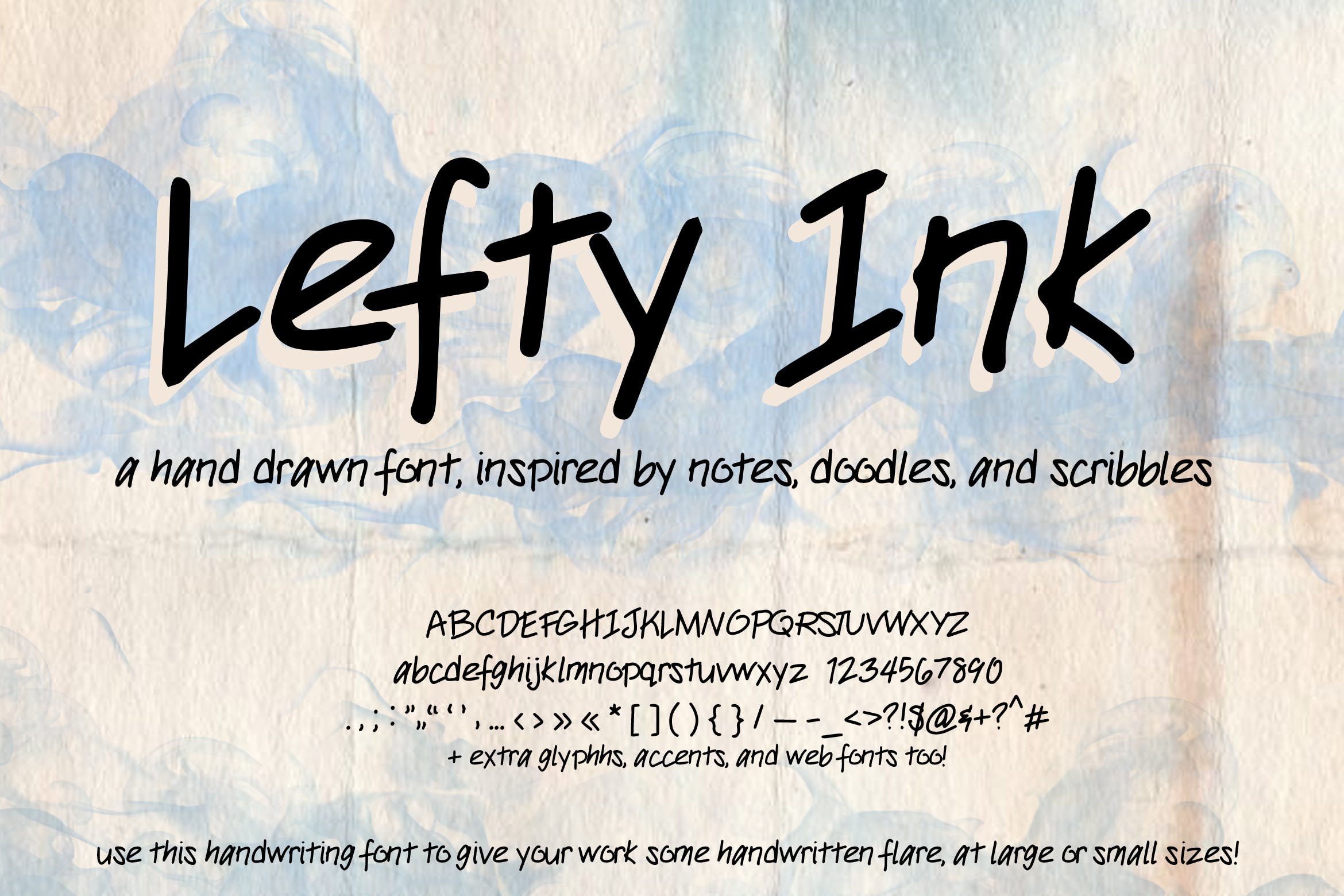
Introducing Lefty Ink Handwriting Font, a sketchy, handwritten sans serif font.
If you’re looking for aesthetic fonts, perfect for a hand drawn type look, this might be up your alley. I was inspired by notebook writing, journal lettering, and other scribbles from my own drafts and notes. I just love the organic quality of a handwriting font. 🙂 This handwriting font also includes a number of extended Latin characters, accents, and web fonts.